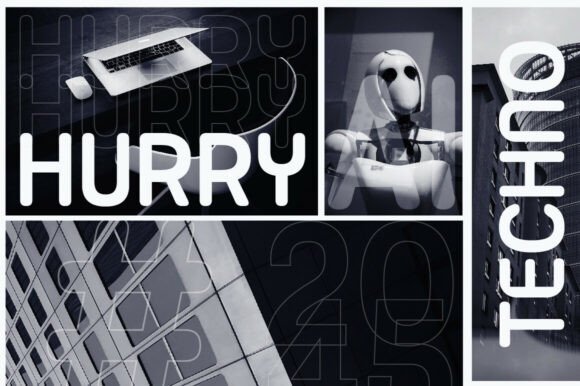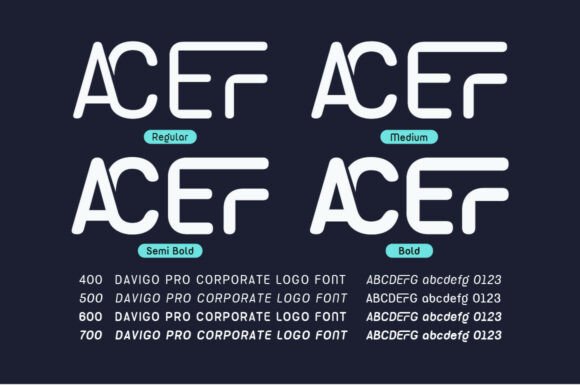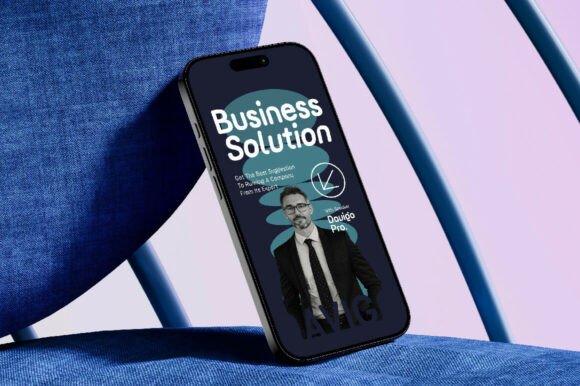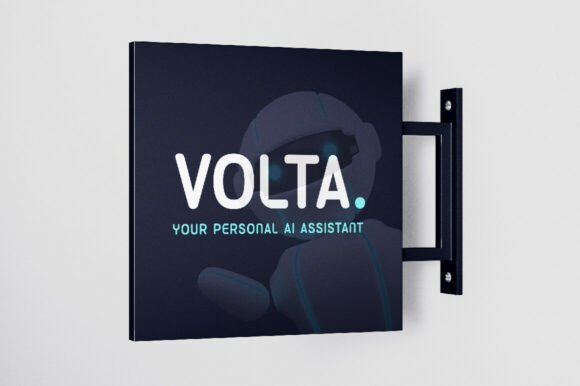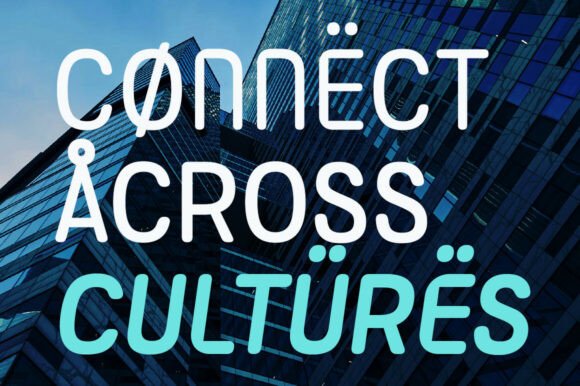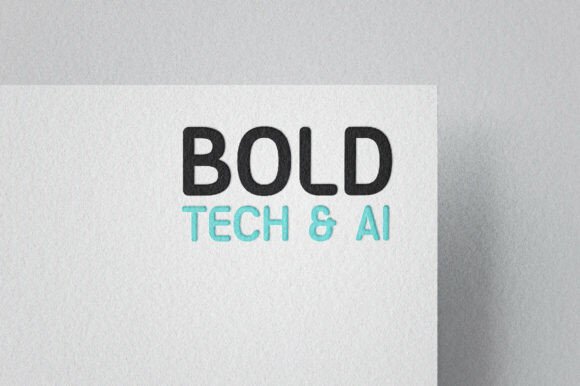
Introducing Davigo Pro Font: The Ultimate Typeface for Modern Brands
In the world of typography, font styles play a crucial role in shaping brand identities. A well-designed font can elevate a brand’s visual presence, convey its message, and create a lasting impression. Davigo Pro, the latest evolution of the Davigo type family, is a game-changer in the realm of typography. This article will explore the features, benefits, and applications of Davigo Pro, a font that is poised to revolutionize the way brands communicate with their audiences.
The Evolution of Davigo Pro
Davigo Pro is the newest iteration of the Davigo type family, re-engineered with a refined, rounded treatment that introduces a softer, more fluid visual character. The updated letterforms have been carefully reshaped to enhance readability while delivering a warm, contemporary presence. This modern aesthetic makes Davigo Pro an ideal choice for brands seeking to create a strong visual identity.
Key Features of Davigo Pro
Davigo Pro boasts several key features that set it apart from other fonts:
• Balanced Proportions: Davigo Pro’s balanced proportions create a harmonious visual flow, making it perfect for body text and headlines.
• Smooth Terminals: The font’s smooth terminals add a touch of sophistication, giving it a premium feel.
• Subtle Feminine Nuance: Davigo Pro’s curves exhibit a subtle feminine nuance, making it especially powerful for lifestyle, beauty, and hospitality brands.
• Flexibility: Designed for flexibility, Davigo Pro adapts effortlessly across branding ecosystems, from primary logo marks to supporting visual identities.
Applications of Davigo Pro
Davigo Pro is a versatile font that can be used in a variety of applications:
• Lifestyle Brands: Davigo Pro’s soft, rounded curves make it an excellent choice for lifestyle brands seeking to create a warm and inviting visual identity.
• Beauty and Hospitality: The font’s subtle feminine nuance and elegant aesthetic make it perfect for beauty and hospitality brands looking to create a luxurious and sophisticated brand image.
• Professional and Commercial Applications: Davigo Pro’s structured and balanced design ensures it remains legible and effective in professional and commercial contexts.
Benefits of Using Davigo Pro
The benefits of using Davigo Pro are numerous:
• Enhanced Readability: Davigo Pro’s carefully reshaped letterforms enhance readability, ensuring that your brand’s message is communicated clearly.
• Unique Visual Identity: The font’s distinctive aesthetic helps create a unique visual identity that sets your brand apart from competitors.
• Flexibility: Davigo Pro’s adaptability makes it an excellent choice for brands with diverse visual identity needs.
Davigo Pro is a revolutionary font that offers a unique blend of style, flexibility, and readability. Its refined, rounded treatment and balanced proportions make it an excellent choice for brands seeking to create a strong visual identity. Whether you’re a designer, craftsperson, or brand owner, Davigo Pro is an exceptional tool for communicating your message and elevating your brand’s presence.
Get Ready to Elevate Your Brand with Davigo Pro
Experience the power of Davigo Pro and discover how this exceptional font can transform your brand’s visual identity. With its wide range of applications and benefits, Davigo Pro is poised to become a go-to choice for designers and brands looking to create a lasting impression.